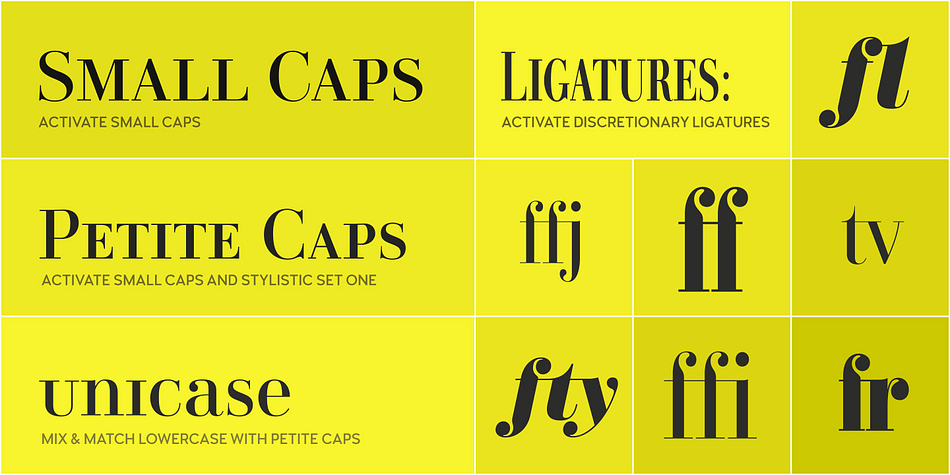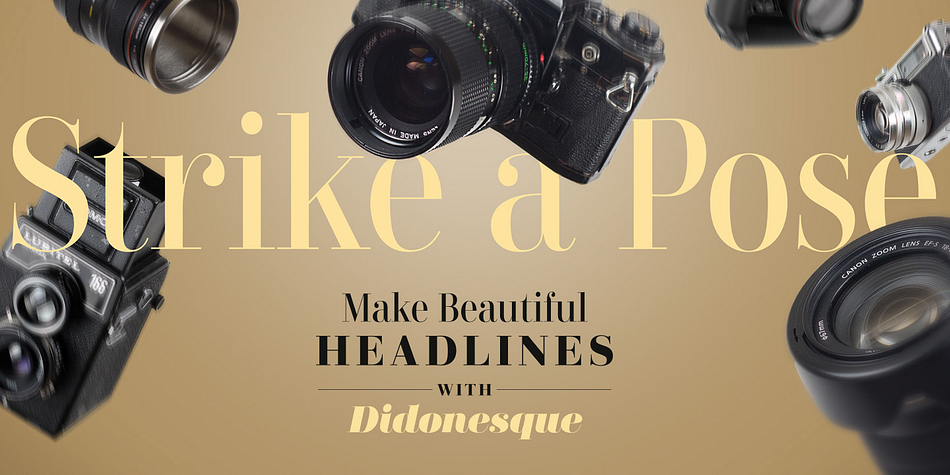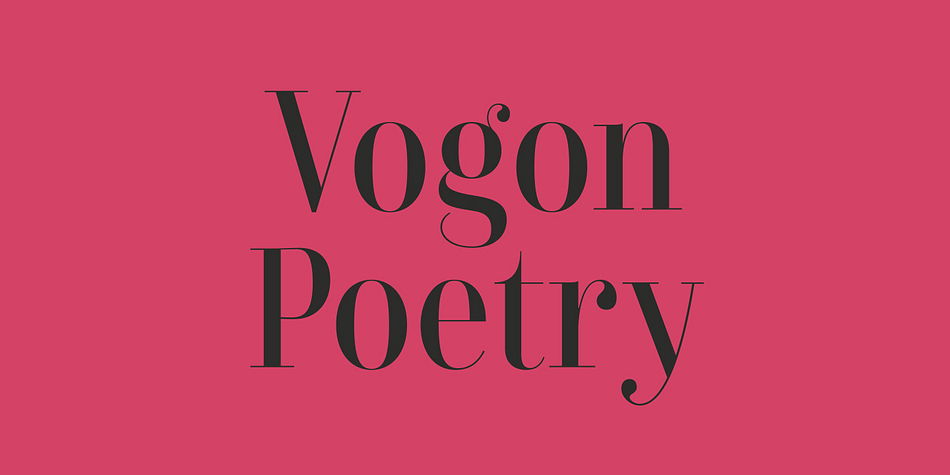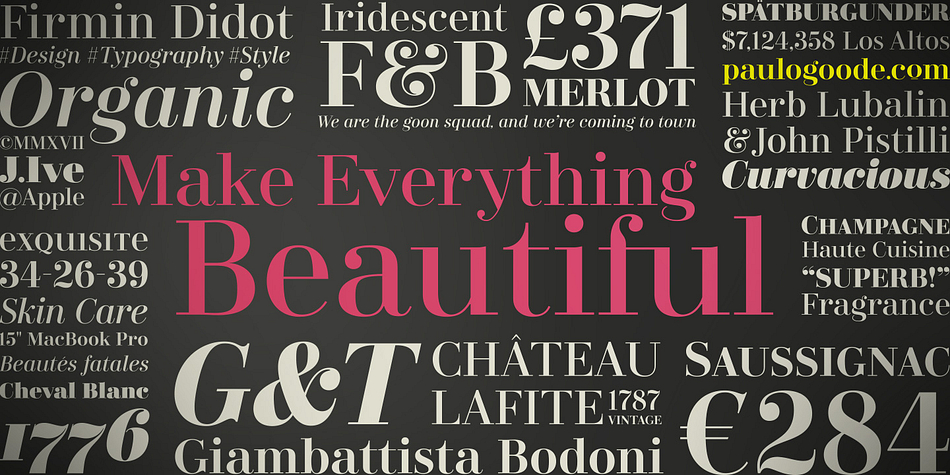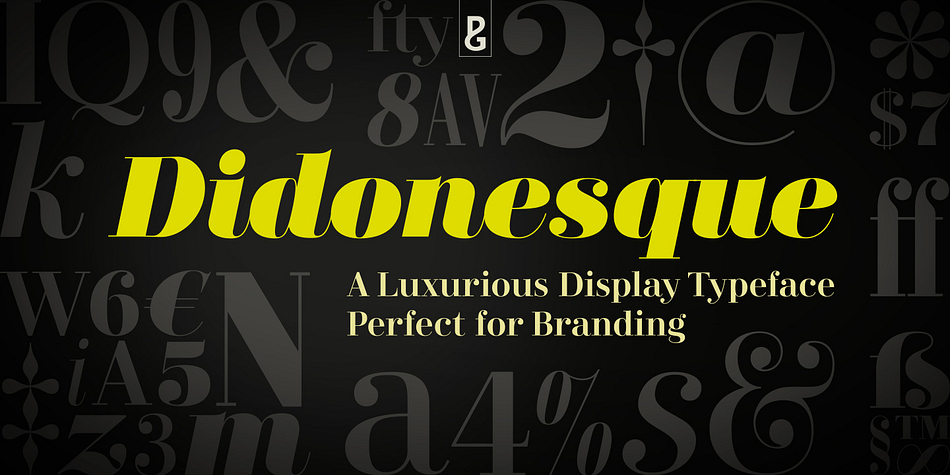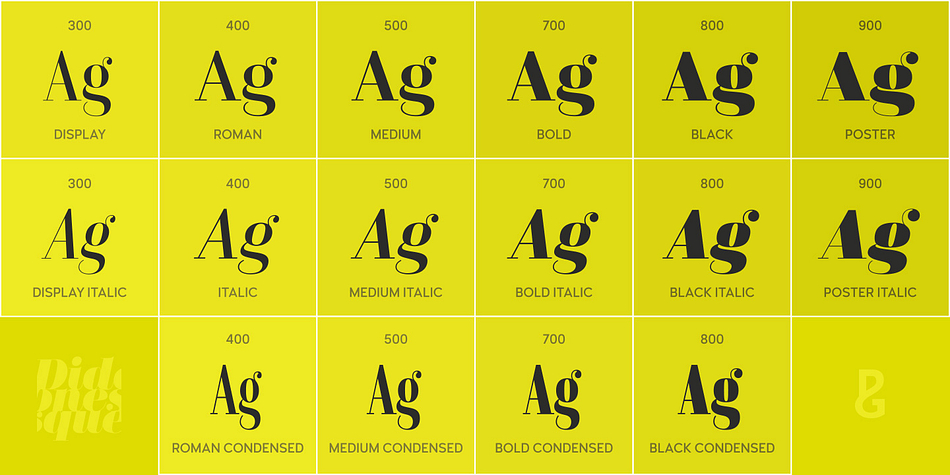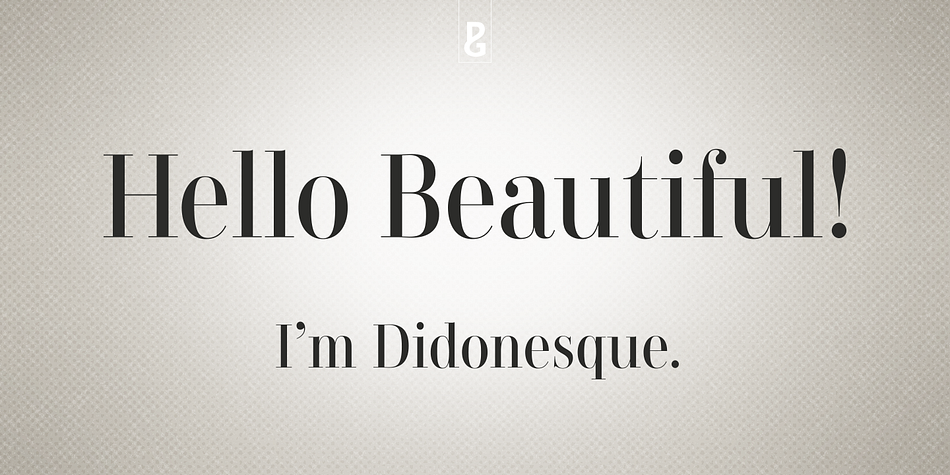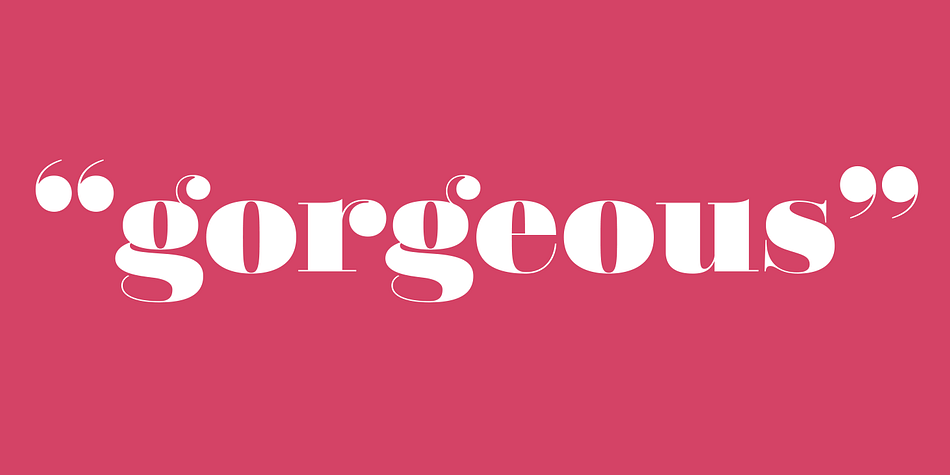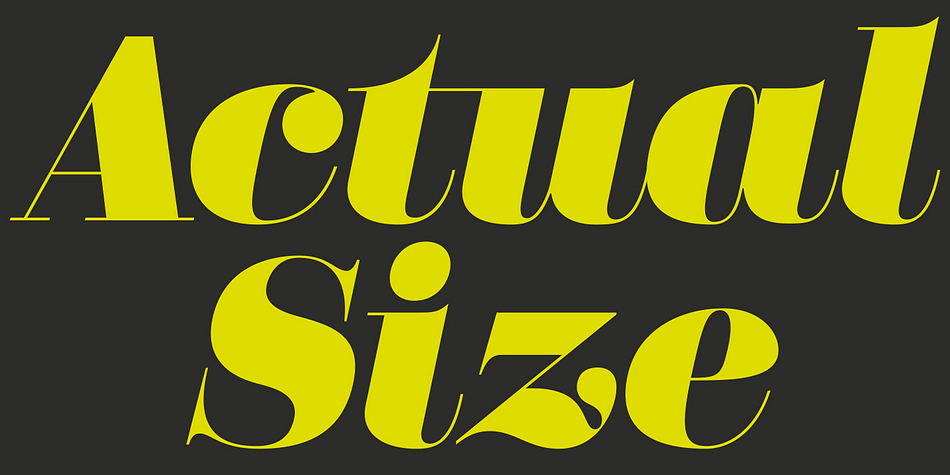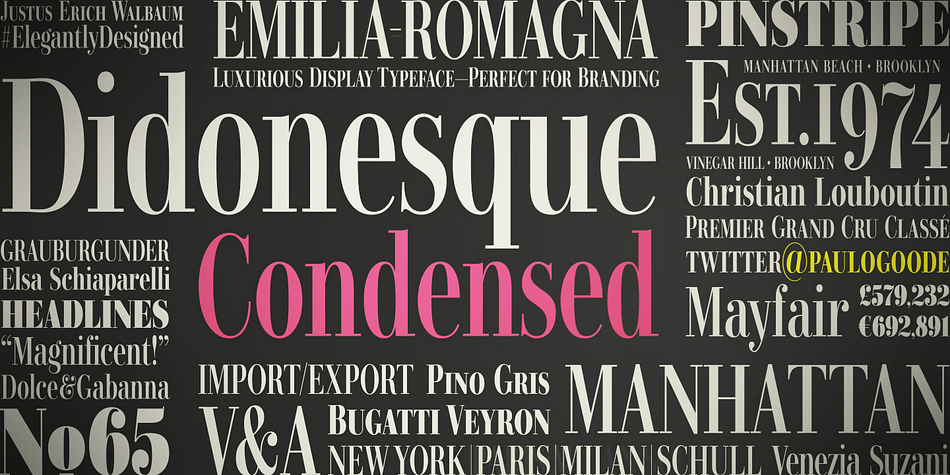
Didonesque is a serif font family. This typeface has sixteen styles and was published by Paulo Goode.
This is Didonesque – a highly versatile and elegantly stylish font family inspired by classic Didone typefaces that are synonymous with luxury brands. It is inherently a display typeface and therefore ideal for headlines, logotype, branding and short runs of text.
Didonesque includes both small caps and petite caps with full European diacritics, you can mix and match these petite caps with regular lowercase glyphs to create interesting unicase-style typography. Other distinguishing features include a higher x-height with shorter ascenders and descenders than traditional Didone typefaces, there are also slight curvatures within the /v/w/y/ characters giving Didonesque its distinctive style.
Key features:
• 4 weights in Roman and Italic styles
• Poster & Display styles in roman and italic
• 4 weights in Condensed style
• Small Caps, Petite Caps, Alternates, Ligatures and Contextual Alternates
• Full European character set
• 750 glyphs per font.